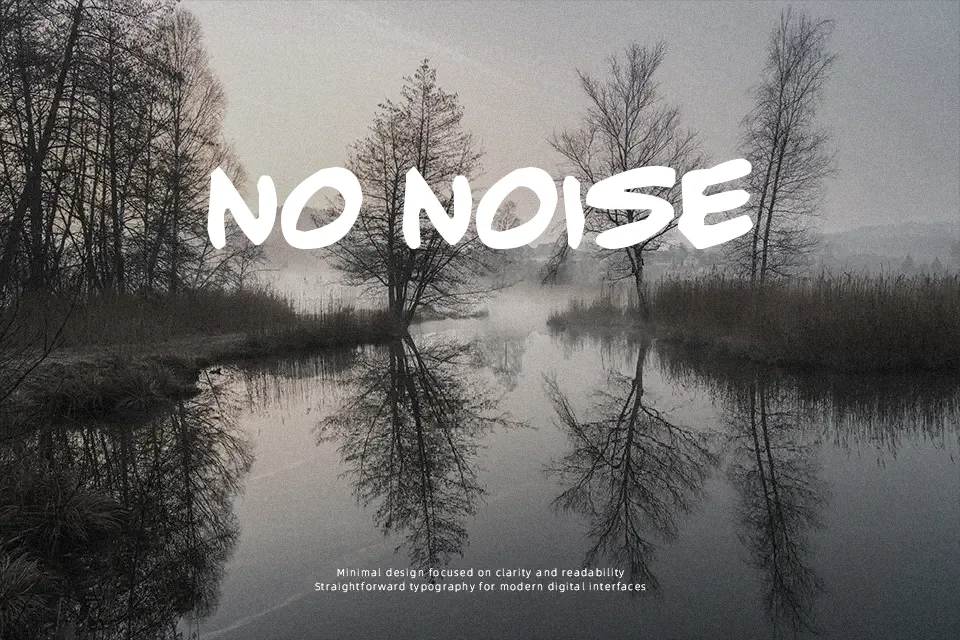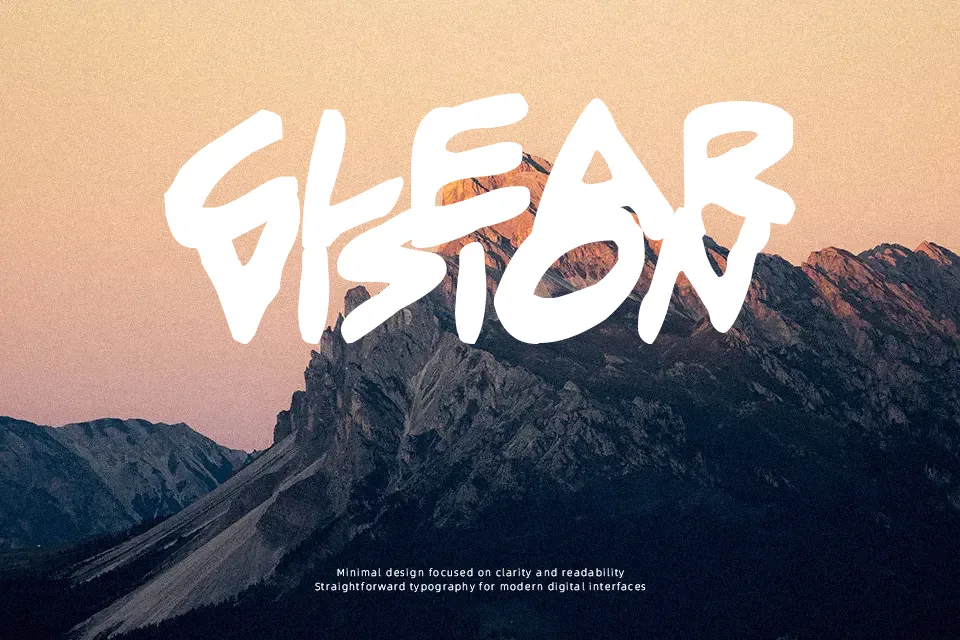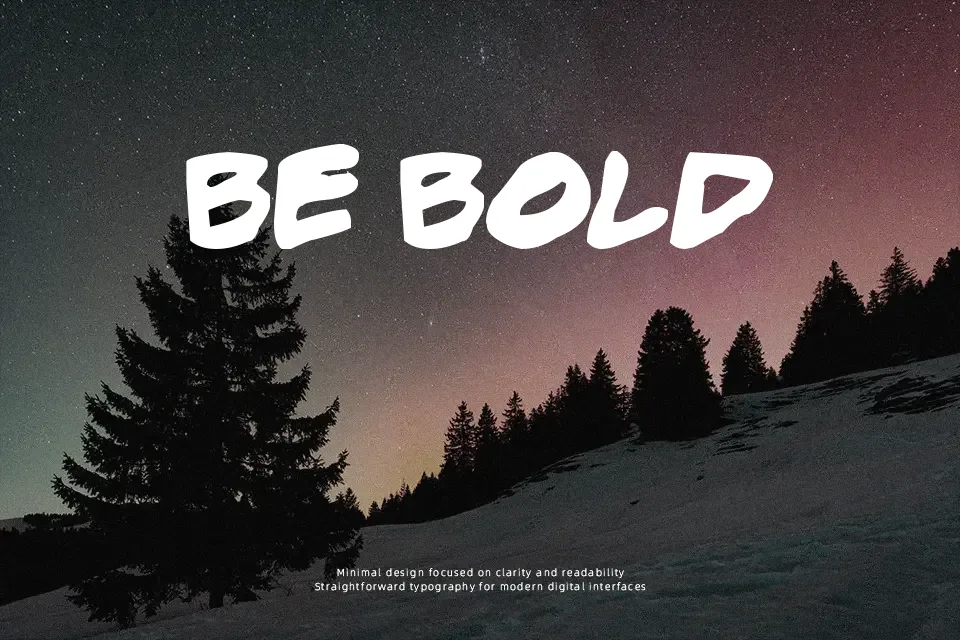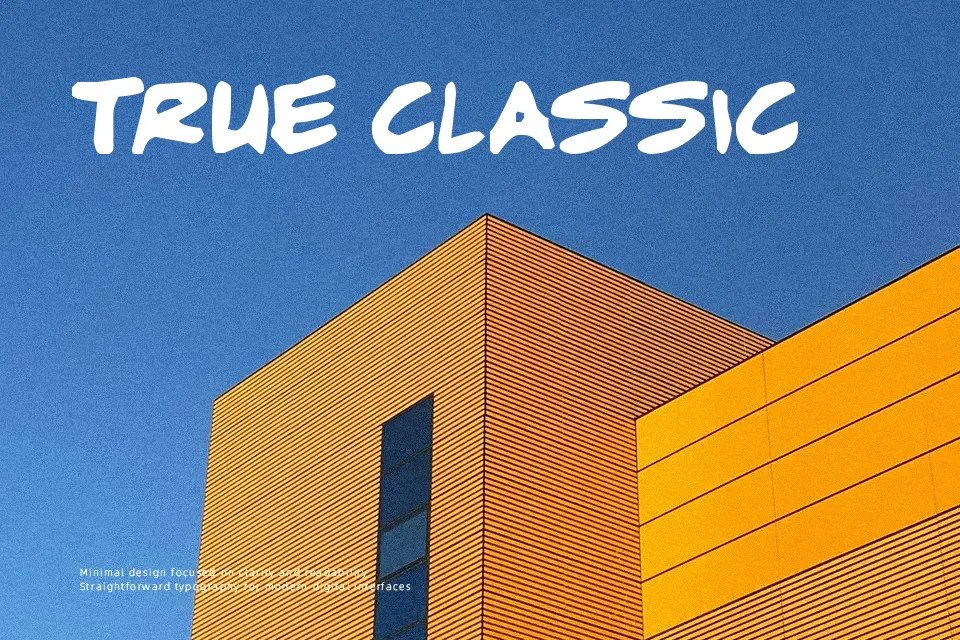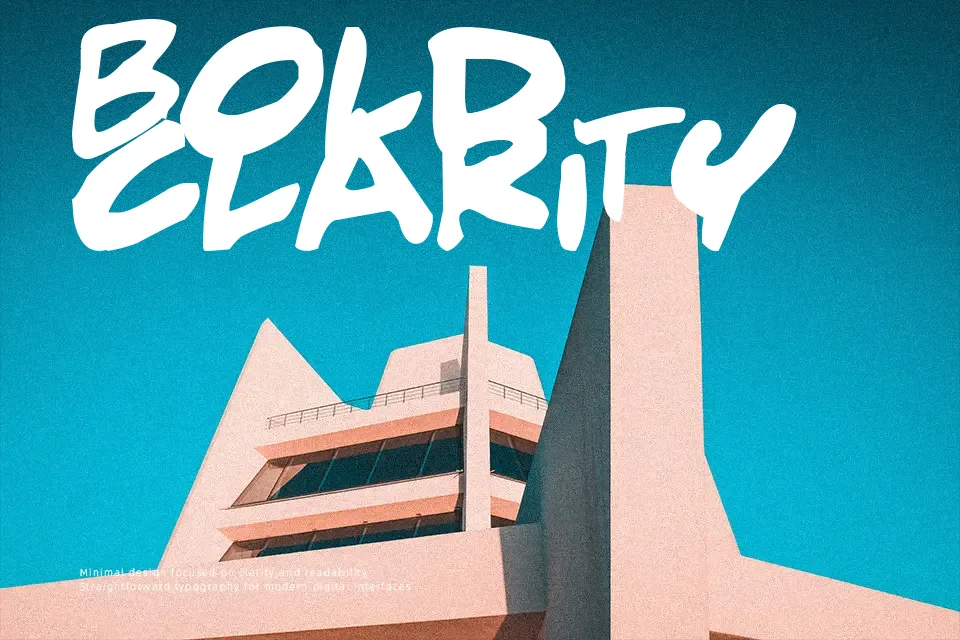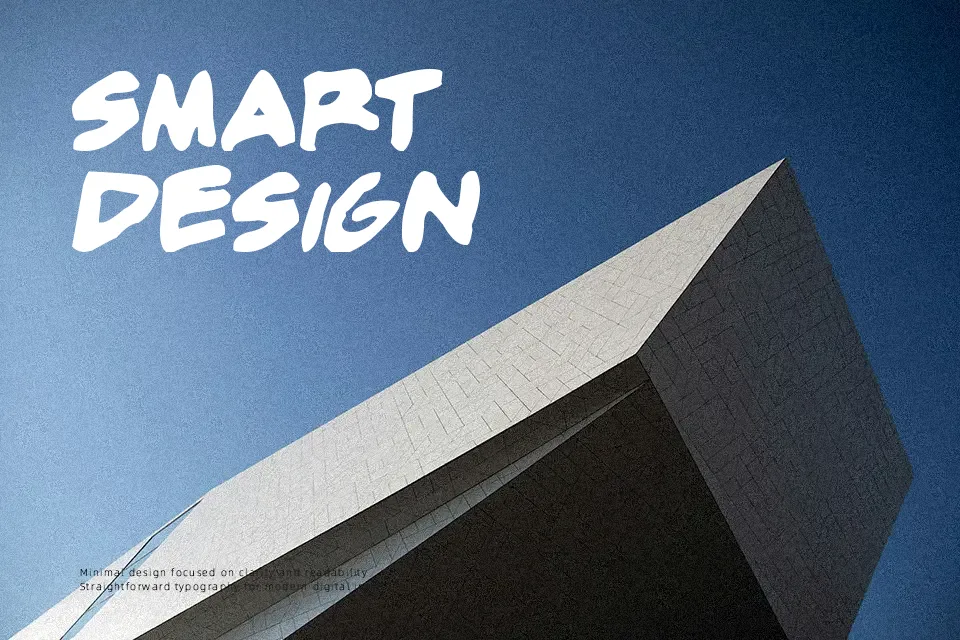
Adam Warren Font
Adam Warren lands somewhere between a hand-inked comic caption and a marker scrawl — its strokes are thick, slightly uneven, and carry a deliberate roughness that reads as expressive rather than sloppy. The letterforms are condensed enough to sit comfortably in panel headers or poster text without crowding, and the bold and bold-italic variants extend its usefulness across hierarchy levels. That said, the irregular baseline and casual construction make it a poor choice whenever text needs to convey authority, precision, or corporate polish. It handles short bursts of display text well; push it into body copy or paragraph-length content and legibility drops quickly. For indie comic creators, fan-made content, or youth-oriented branding, it earns its place — but commercial projects require a separate license arrangement with the author.
Best For:- Indie comic book titles and panel headers
– Fan art and fan-made zine covers
– Casual social media graphics and stickers
– Youth-focused event posters
Not Ideal For:- Body text or multi-line paragraphs
– Corporate branding or formal documents
– High-density editorial layouts
Perfect for branding, editorial, and headline, with a bold and comic style.